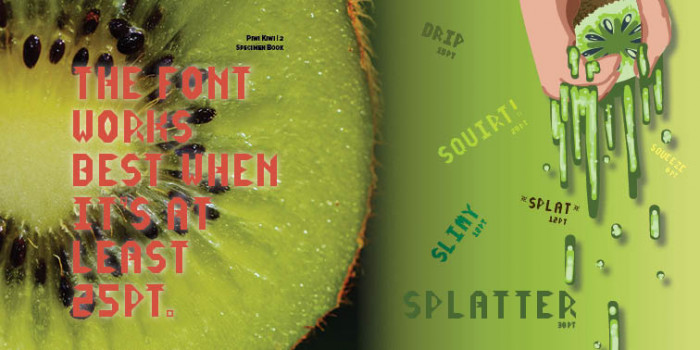
Piwi Kiwi
by Neurotic Kiwi
I wanted to make a font that was fairly simple and had sharp straight lines that consisted mostly of triangular shapes. I wanted to make a more legible version of the Edge font by John Alexander.
My favorite letters/symbols that I made are Q, K, % and *.
Q is the letter that definitely had the most revision due to the trouble I had making its tail work well with all the other letters in the font.
I can see this being made with strips of folded paper. You solved the Q problem really wel; I think the R, X, Z and 7 are very clever, too. I also like the * and %! Well done.